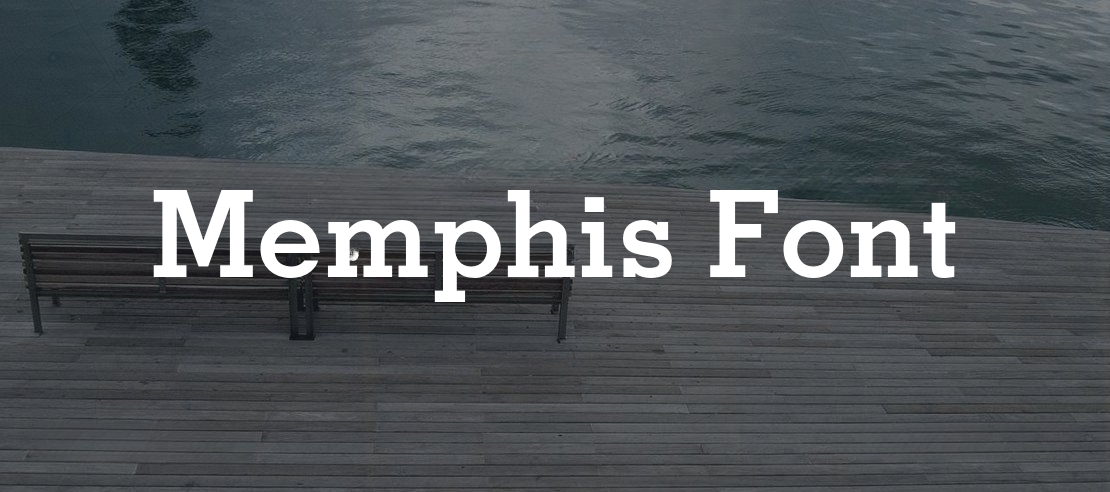
Memphis Font is a member of the Slab Serif font family. This font style has a semi-bold and attractive texture appearance. This font style is best to utilize in display designs and projects. This font style produces the amazing sensations of German geometric typographies such as Futura Font and this font has also the most identical personalities with this font style. So, you can also consider this typeface in replacement of Futura font.
This font style has been released in a number of weights and with similar characters such as swashes, which digitizations have mostly not included. The name of this font style has been kept on the Egyptian Capital Memphis. This font style is also utilized for creating amazing designs in Canva, a graphic designing software.
Creator of Memphis Font
This font style has been designed by a well-reputed graphic and font designer named Dr. Rudolf Wolf in 1929. He has also created many of the famous font styles that are popular all over the globe.
This font texture is constructed with a family of its own. Each style of this family is comprised of capital letters, small letters, glyphs, punctuations, numbers, symbols, special characters, and many languages support. These styles are mentioned below.
- Memphis Light
- Memphis Light Italic
- Memphis Roman
- Memphis Bold
- Memphis Bold Italic
- Memphis Extra Bold
- Memphis Medium
- Memphis Medium Italic
| Name | Memphis Font |
| Style | Slab Serif |
| Designer | Dr. Rudolf Wolf |
| Foundry | Stempel Type Foundry |
What is Memphis font?
This font is a member of the Slab Serif font family. This font style has a semi-bold and attractive texture appearance. This font style is best to utilize in display designs and projects.
What fonts go with Memphis Font?
There are some of the typographies that can make the best pair with this font style. But in our opinion, Rockwell Font makes a great pair with this font style.
Is Memphis Font is a good font?
This font style has an attractive and semi-bold texture appearance. This typeface has been utilized in various designs and projects. So, this font style is an awesome font.
Can I use Memphis font in my Logo?
Many designers and companies are using this font style in many designs and projects. So, yes you can use this font style for your logo designs.
Who designed Memphis Font?
This font style has been designed by a well-reputed graphic and font designer named Dr. Rudolf Wolf in 1929.